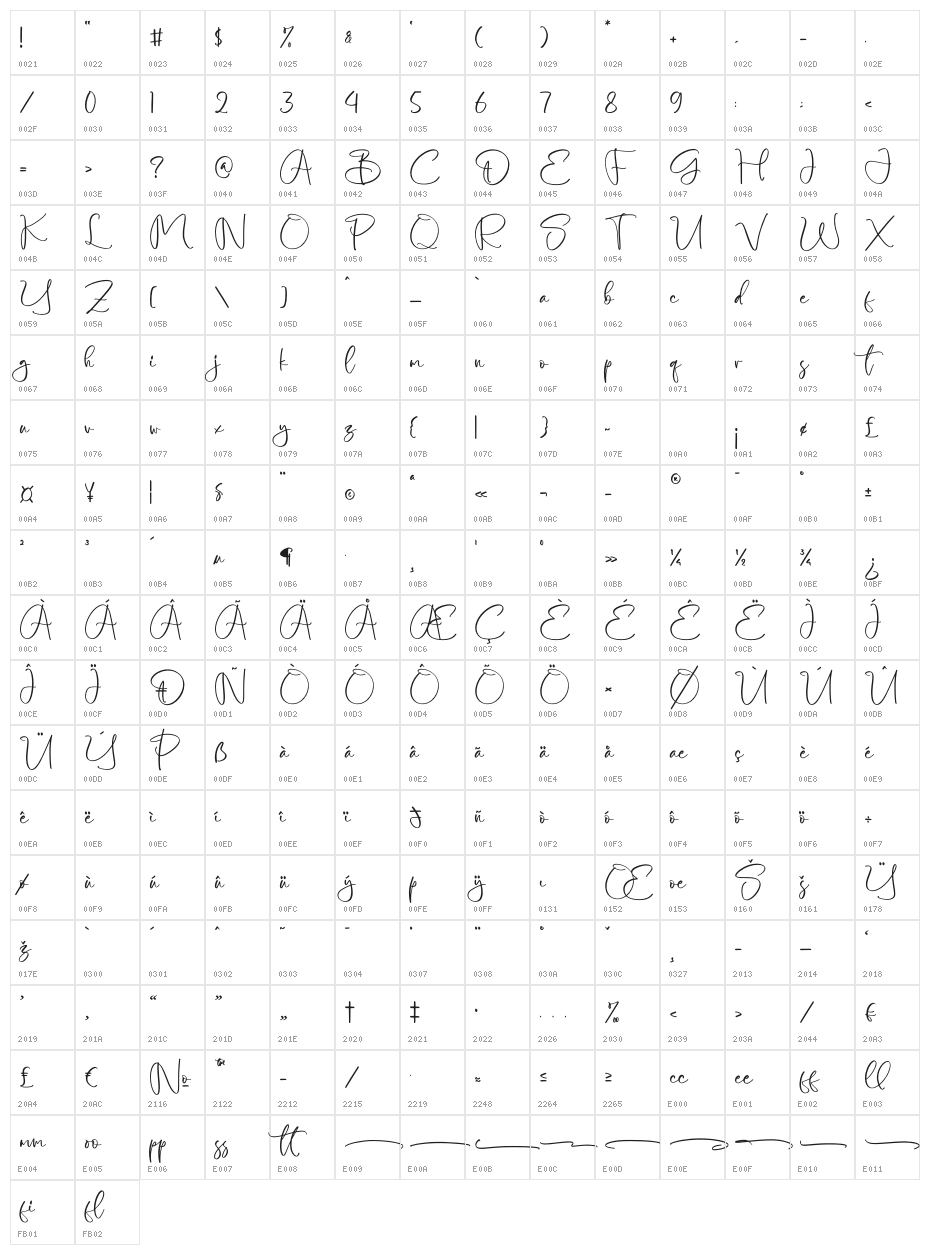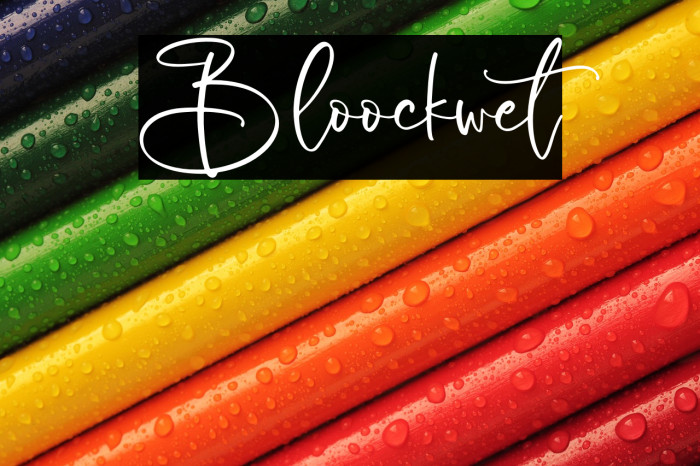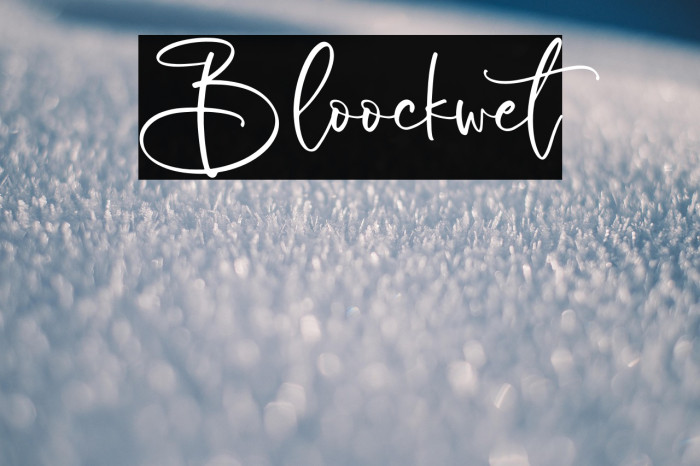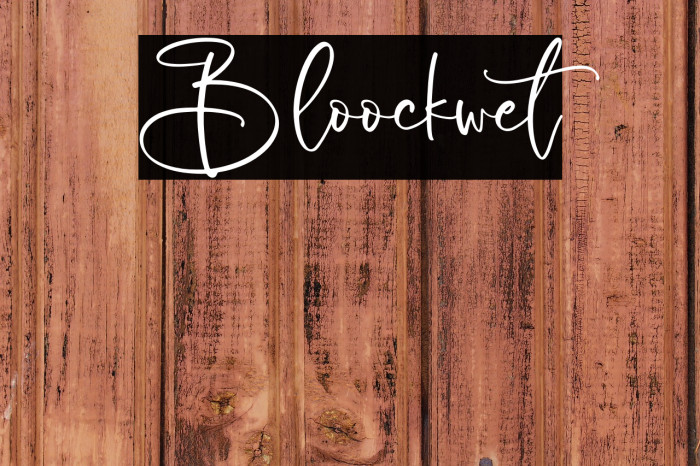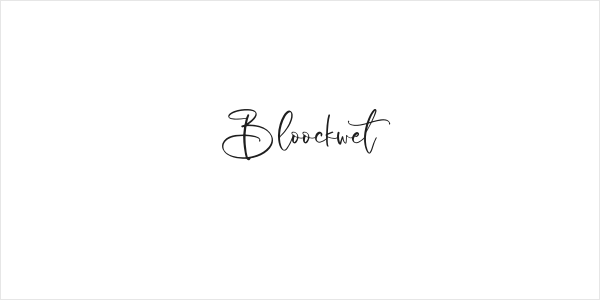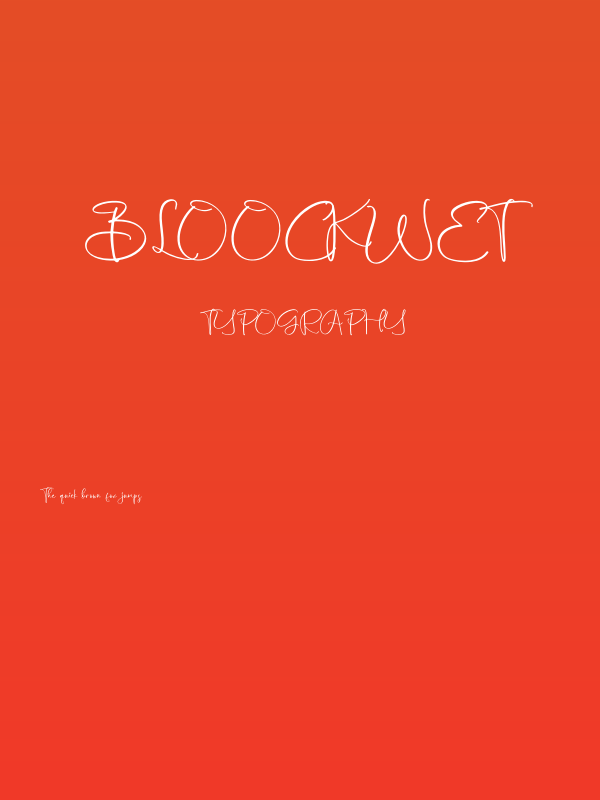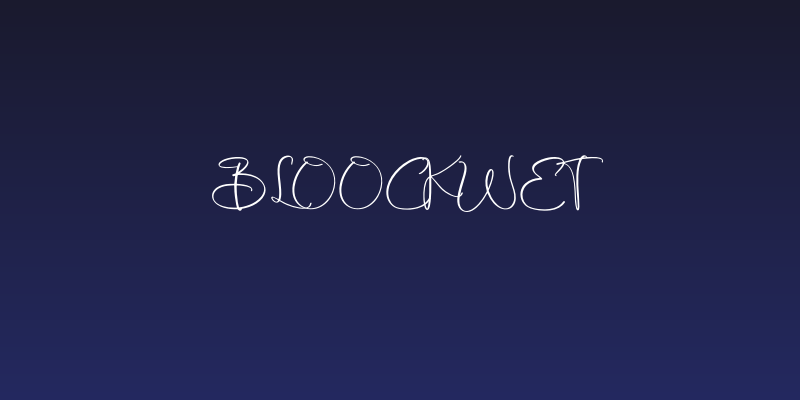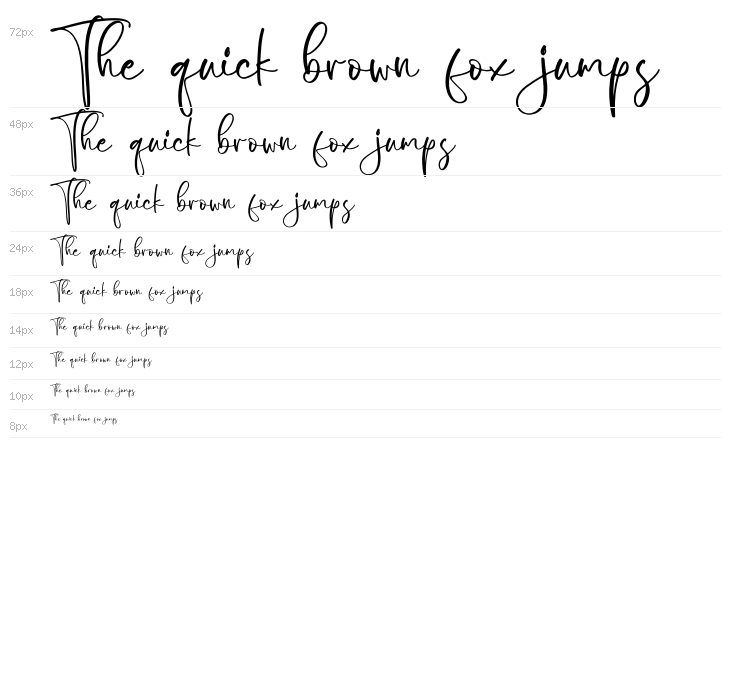
Bloockwet Font
Bloockwet Description
This font features a whimsical and flowing script style, characterized by its elegant and intricate letterforms. The uppercase letters are bold and expressive, with a playful looped design that adds a touch of charm. The lowercase letters maintain a consistent flow, with some characters featuring unique flourishes that enhance the overall aesthetic. Numbers are clear and maintain the script style, ensuring readability while preserving the decorative nature. Special characters are thoughtfully integrated, complementing the font's artistic flair. This font's design is ideal for projects that require a personal and artistic touch, such as invitations, greeting cards, and branding materials.
| Proposed Projects | Ideal for wedding invitations, greeting cards, personal branding, and artistic projects. |